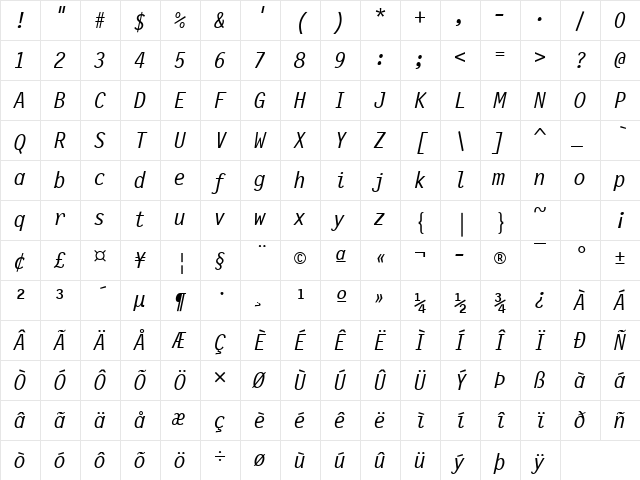
Financial is a composed and adaptable typeface that performs quietly and consistently across a wide range of design contexts. The slanted form adds forward momentum and visual energy.
Pro Tip: Use Financial for emphasis, pull quotes, and subheadings where its slanted energy can add rhythm to the layout.